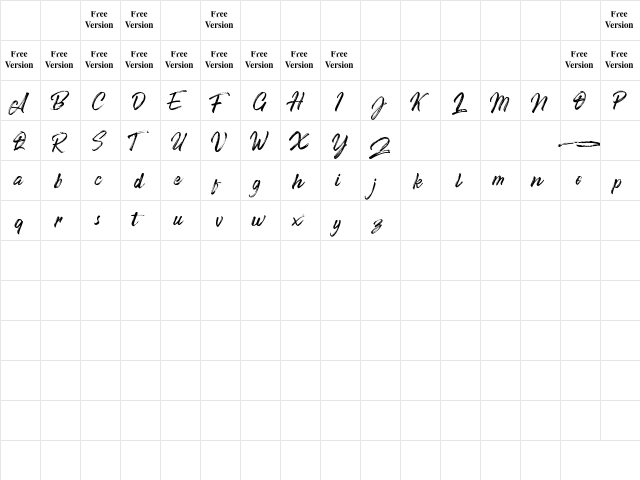
Artsender Personal Use Only Regular
| Designer | Fuad Hasan |
Design Context for Artsender Personal Use Only Typeface
Artsender Personal Use Only is a composed and adaptable typeface that performs quietly and consistently across a wide range of design contexts.